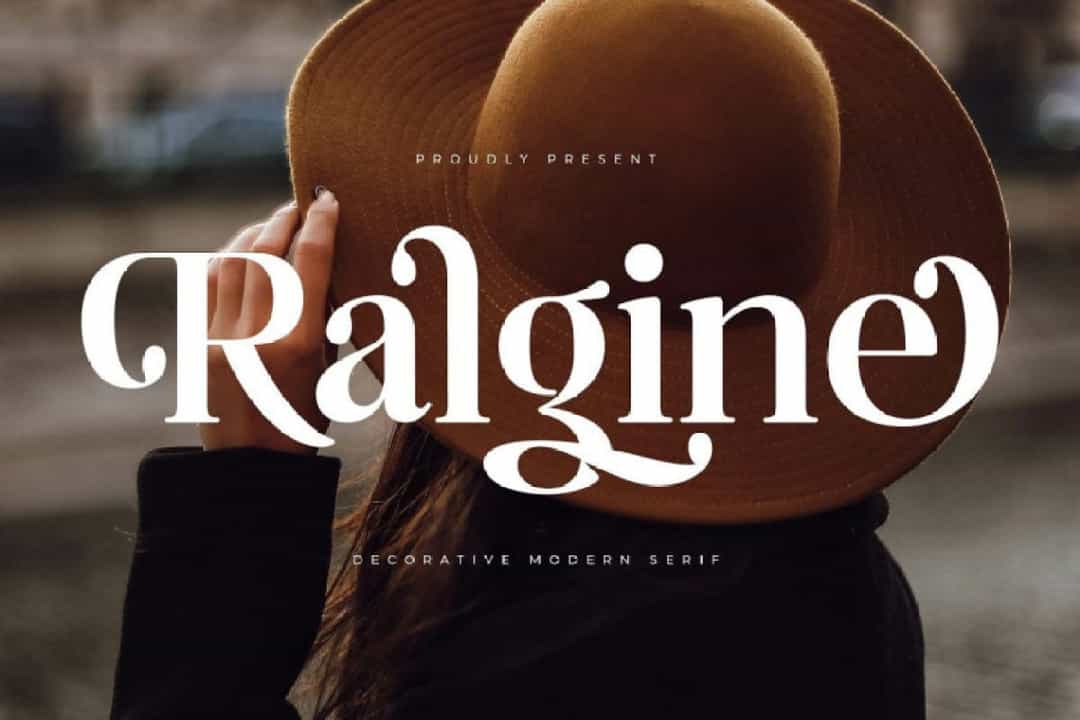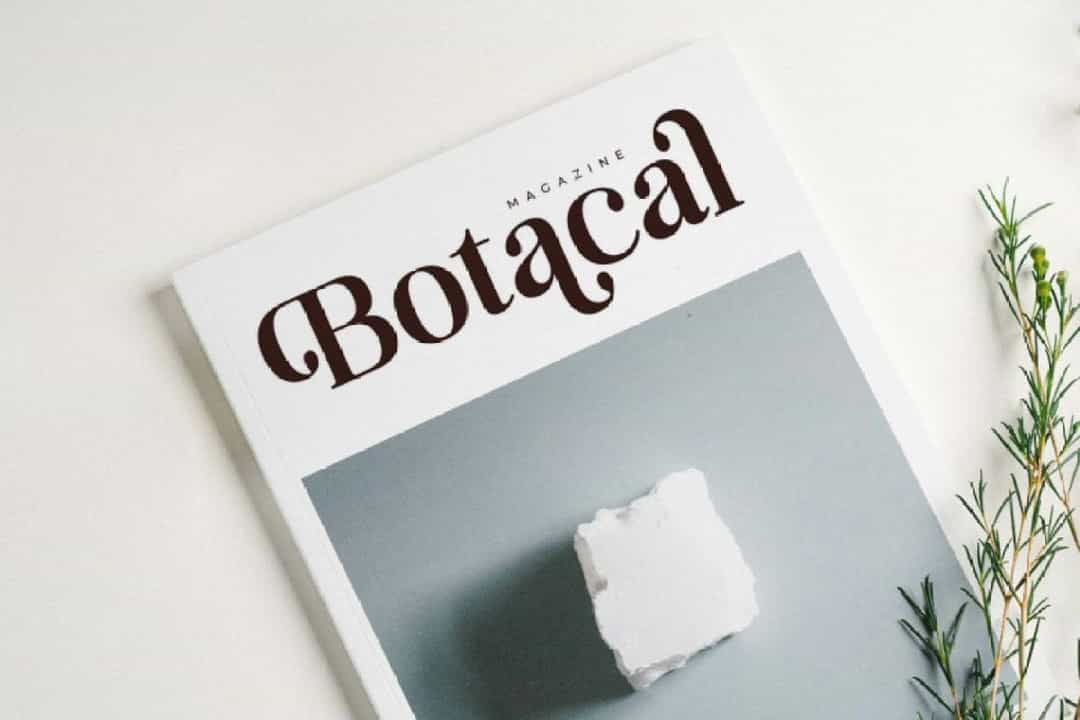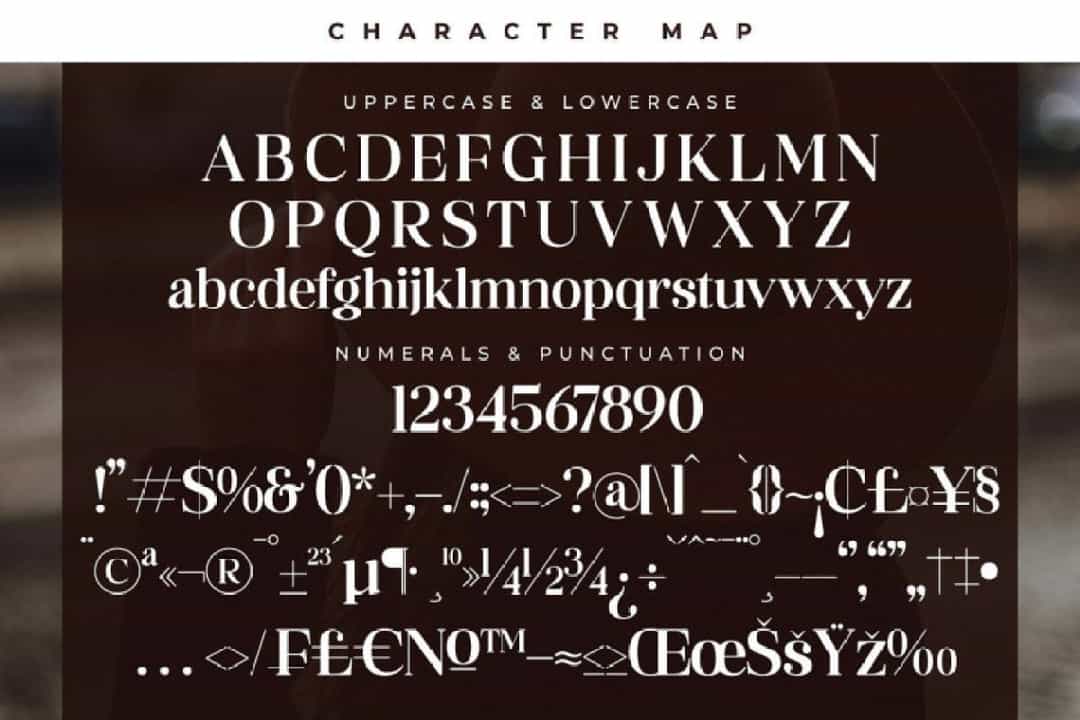
Ralgine is a classic serif font with timeless appeal and sophisticated details, drawing readers in with its captivating style and exquisite details. Crafted to exude class with elegant lines and details that exude classiness. Make your designs stand out with classic elegance from Ralgine. An elegant font that captures readers and exudes lavish design.